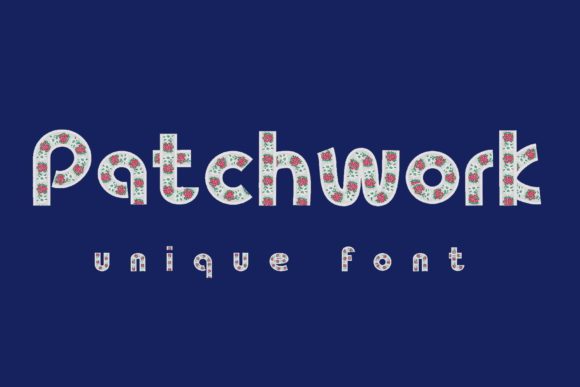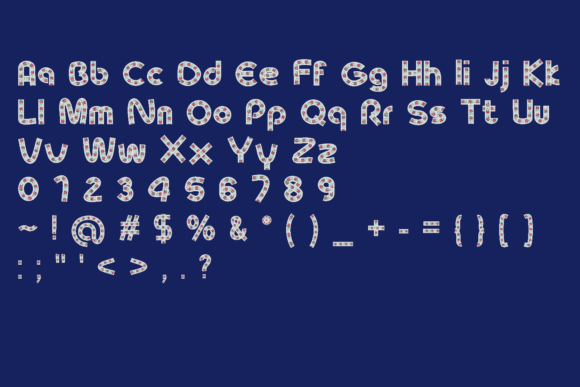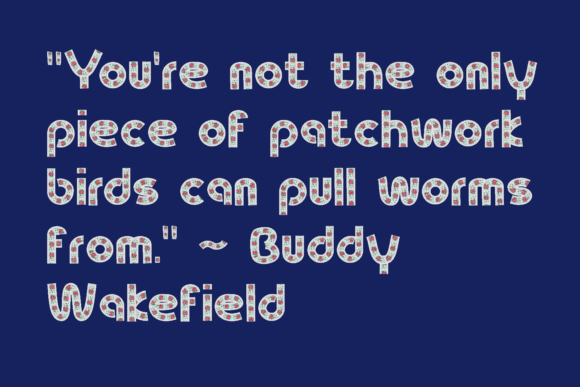
About Patchwork Font
Patchwork is an incredibly unique and adaptable color font that brings a touch of creativity and versatility to your crafting projects. Whether you’re designing cards, creating branding materials, or designing labels, this font is sure to elevate your ideas and leave you amazed by the outcome.
With its distinctive and eye-catching letterforms, Patchwork adds a sense of charm and personality to your typography. It seamlessly blends different colors and patterns, creating a visually captivating and dynamic effect that is perfect for various creative endeavors.
Whether you’re working on handmade cards, personalized branding projects, or unique labels, Patchwork enhances your designs with its adaptability and creative flair. It allows you to experiment with different colors and combinations, making each creation truly one-of-a-kind.
Embrace the uniqueness and adaptability of Patchwork and witness how it transforms your favorite creations. With this font, you have a versatile tool to add a touch of creativity and visual interest to your projects, making them stand out with their own special charm. Let Patchwork be the font that amazes you with its outcome and brings your crafting ideas to life.